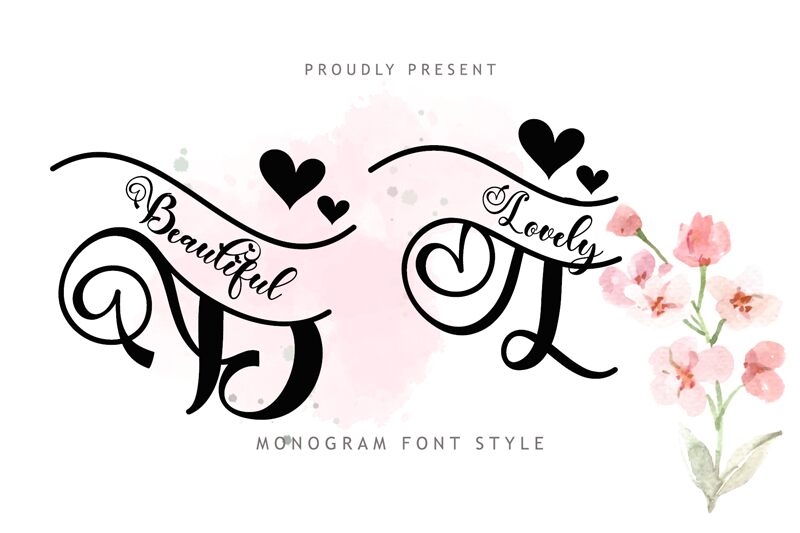
Beautiful Lovely Monogram font family by Yoga Letter beautifully combines elegance with a vintage flair in this free font family. The fonts are ornate and sophisticated with decorative forms. Artistic flair and expressiveness further boost the whimsical processing of the typeface that makes one think of romantic holiday aesthetics personally.
With its classic style and refined appearance, this font is the perfect choice for special uses. Monogram style letters are known to be a go-to for companies and businesses. They make wonderful logo designs, highlighted in headers, and signboard applications for luxury brands.